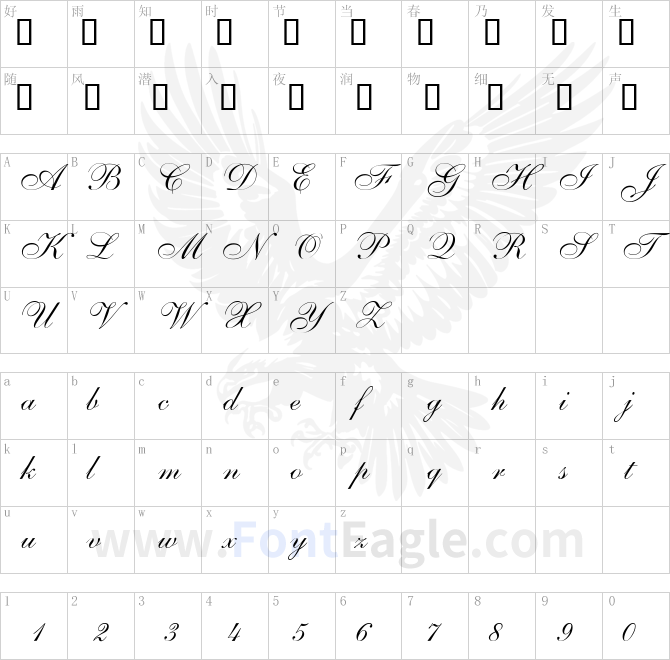
ShelleyAllegroScript is a great font, widely used in graphic design, single-page menu design, poster design and other fields, and is deeply loved by designers.ShelleyAllegroScript download.